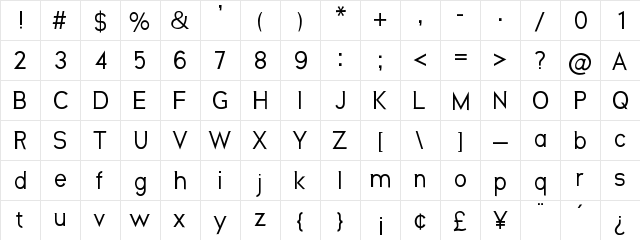
Neos Regular
| Designer | Matt Swank |
Design Context for Neos Typeface
Neos offers clean, dependable letterforms without strong stylistic allegiance, making it a practical choice for designers who need flexibility.